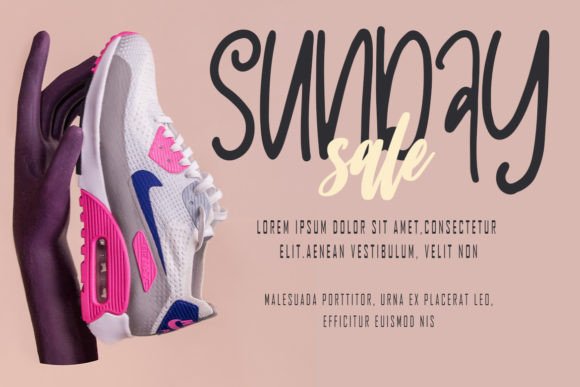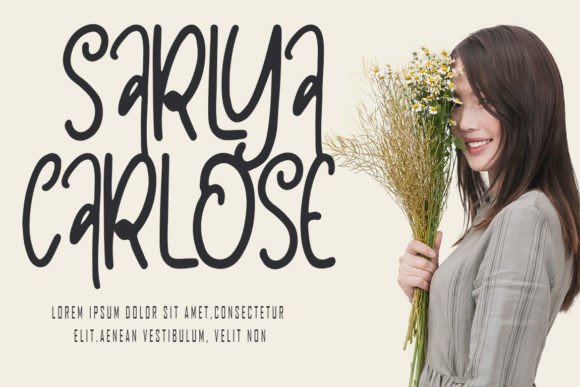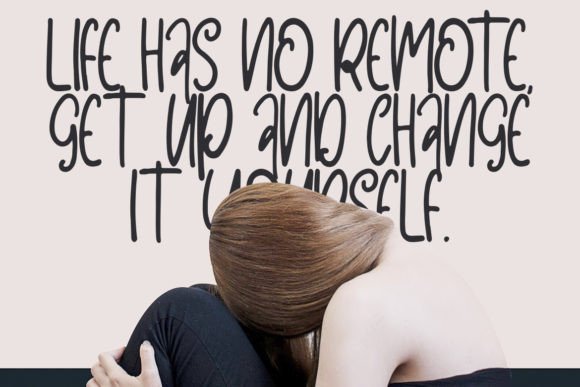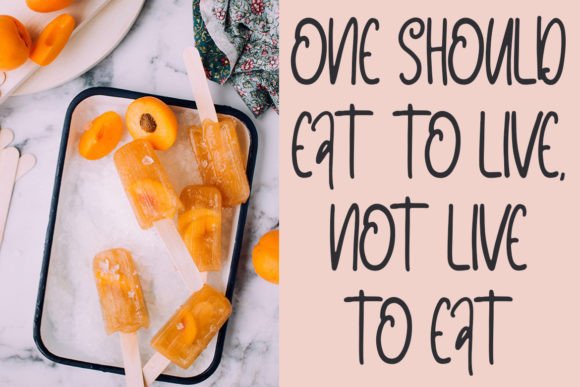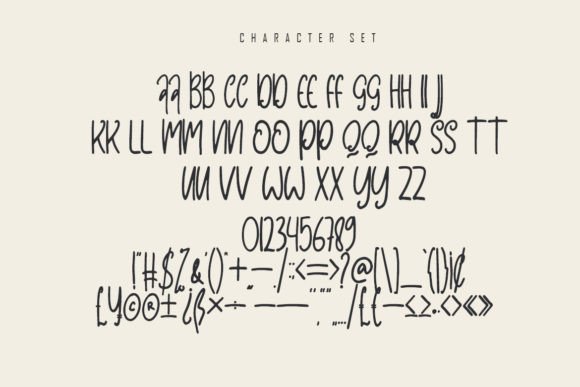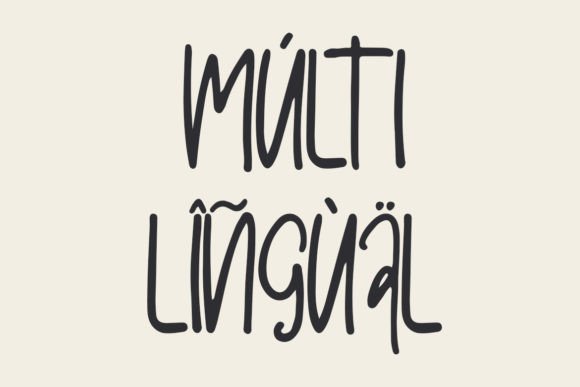
Introduction to Phonesa Font
Phonesa is a playful and whimsical handwritten font.
Incredibly versatile and youthful, this font will brighten up each of your designs .